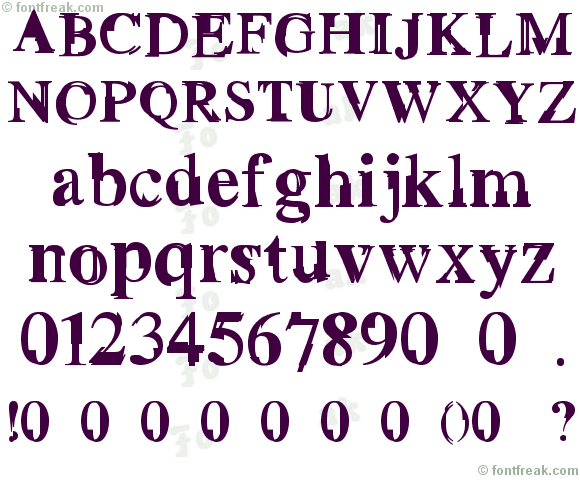
Grotto
Grotto by Catsu!t is a captivating display font that effortlessly combines elegance with a touch of whimsy. Characterized as a decorative typeface, Grotto features unique letterforms that evoke a sense of adventure and creativity. Its stroke weight is moderately bold, creating a striking presence that draws attention, while the high contrast between thick and thin strokes adds a refined aesthetic. The spacing between letters is well-considered, ensuring readability without sacrificing style. Decorative elements, such as playful curves and distinctive serifs, give the font a personality that stands out in various applications.
Grotto is particularly well-suited for creative projects that require an eye-catching and memorable touch. It excels in use cases such as wedding invitations, where its charming design can convey romance and elegance. Additionally, it makes a fantastic choice for movie posters, allowing for a dramatic and thematic presentation. Restaurant menus can benefit from Grotto's distinctive flair, making dishes feel more enticing and sophisticated. Furthermore, content creators looking to elevate their branding will find Grotto an excellent option for logos and promotional materials.
Targeted towards graphic designers, small business owners, and content creators, Grotto appeals to those seeking a font that can enhance their creative projects. Whether you’re designing a stylish invitation or crafting a unique brand identity, this font provides the versatility needed to make a lasting impression.
What sets Grotto apart is its ability to blend visual intrigue with functionality. The combination of its decorative elements and strong presence allows it to shine in both print and digital formats. For anyone looking to add a touch of personality to their work, the Grotto font free download is an opportunity not to be missed.